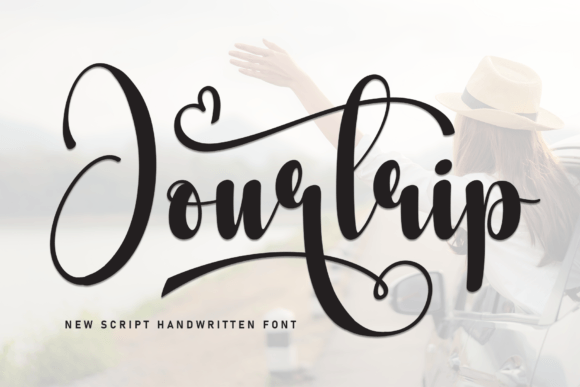
Unleash your creativity and embark on a typographical adventure with Jourtrip Script! Inspired by the warmth of Christmas and the charm of handwritten notes, Jourtrip is more than just a font; it's an artistic journey that will transform your designs into enchanting masterpieces.
With its playful curves and cheerful strokes, Jourtrip captures the essence of joy and celebration. Its unique character dances across your screen, inviting you to create designs that are as captivating as they are heartfelt. Picture wedding invitations adorned with Jourtrip's graceful letters, greeting cards that exude warmth and cheer, or social media posts that sparkle with personality.
Jourtrip's versatility knows no bounds. Its enchanting charm lends itself effortlessly to a myriad of projects, from cheerful logos and branding materials to eye-catching posters and flyers. With Jourtrip by your side, you'll be able to craft designs that radiate happiness and leave a lasting impression on your audience.
But Jourtrip's magic doesn't stop there. It's the perfect companion for crafting heartfelt messages for your loved ones. Imagine sending a handwritten letter penned with Jourtrip's elegant strokes, expressing your emotions with a touch of whimsy and warmth. Your words will dance off the page, carrying your sentiments with a grace that words alone cannot capture.
So, whether you're a seasoned designer seeking to elevate your creations or a hobbyist looking to add a touch of magic to your projects, Jourtrip is your perfect font soulmate. Its user-friendly nature makes it accessible to all, inviting you to explore the endless possibilities of creative expression. Embrace the spirit of Christmas and let Jourtrip be your guide on this extraordinary typographical journey.